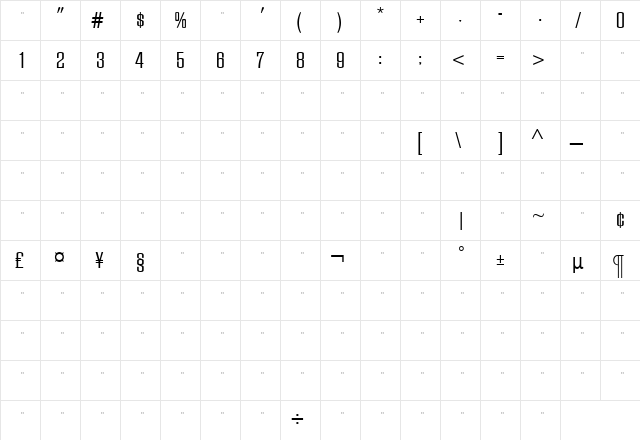
EuropaGrotesqueLightTab Roman
Design Context for EuropaGrotesqueLightTab Typeface
EuropaGrotesqueLightTab offers clean, dependable letterforms without strong stylistic allegiance, making it a practical choice for designers who need flexibility. Its slender proportions lend an understated elegance to any composition.